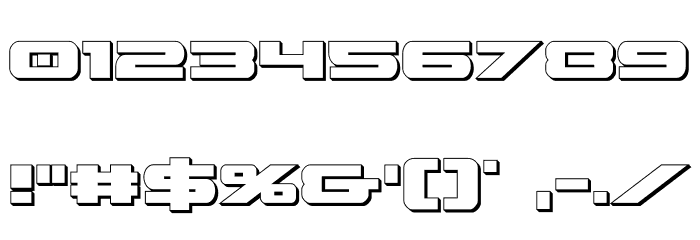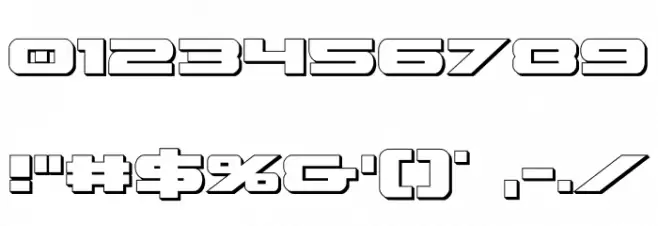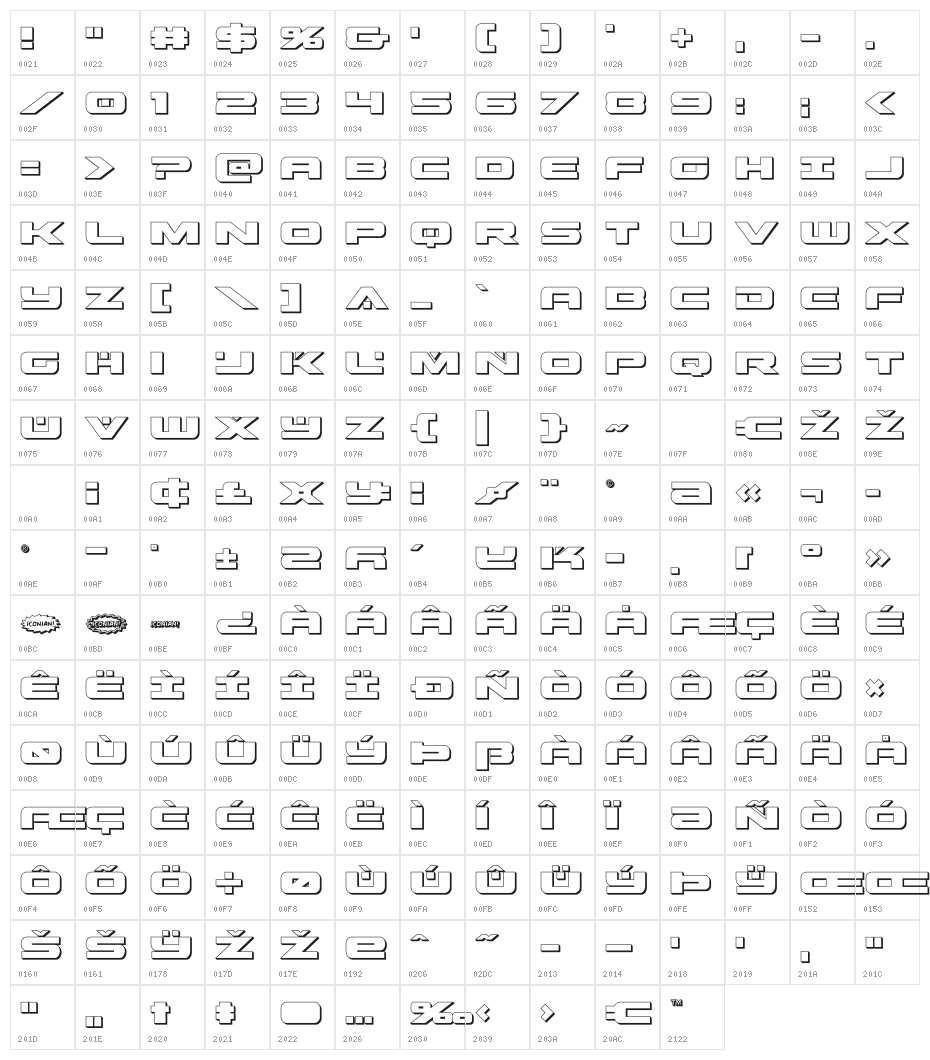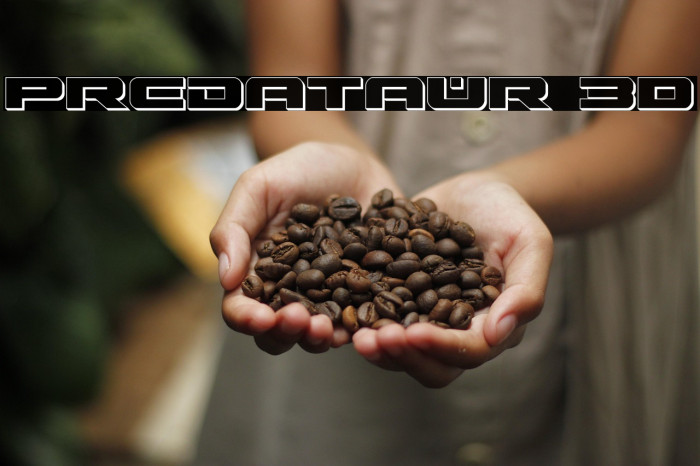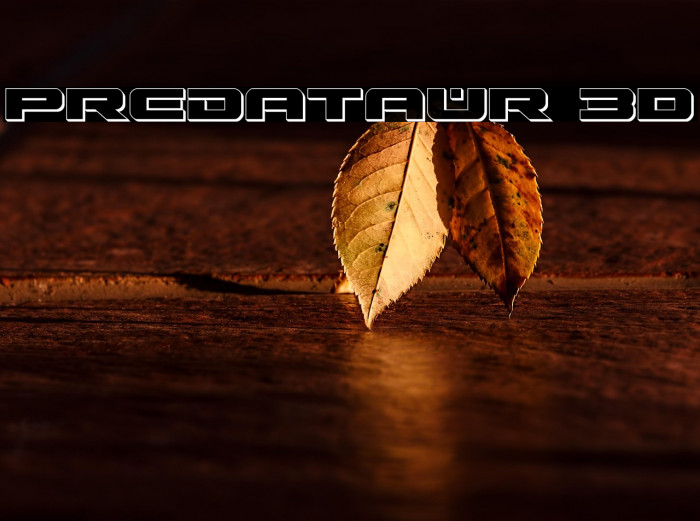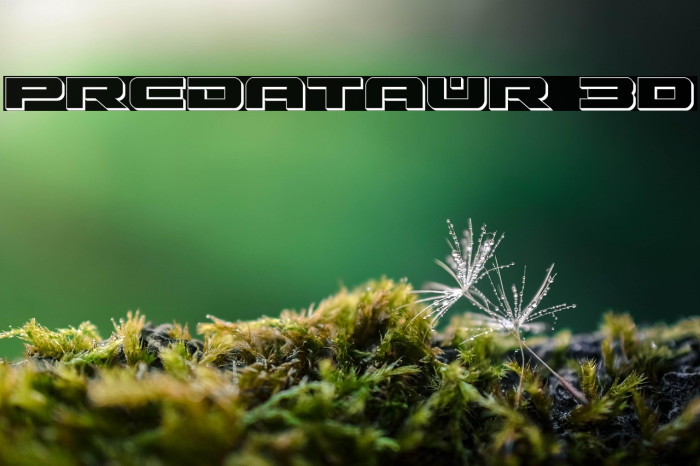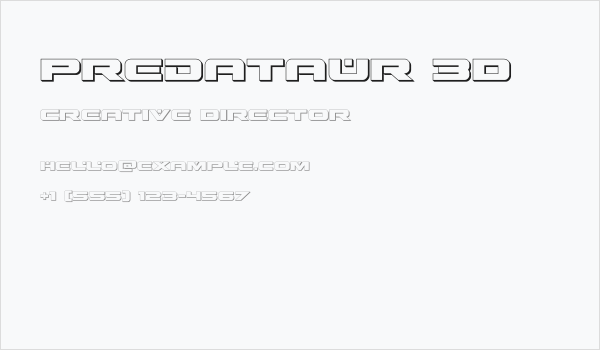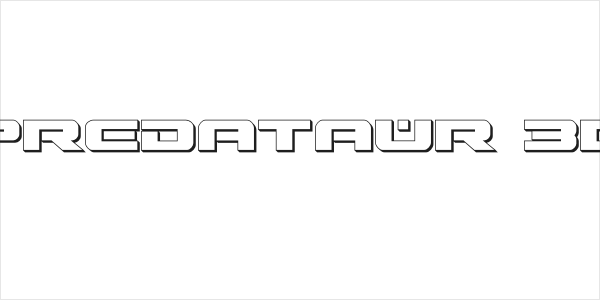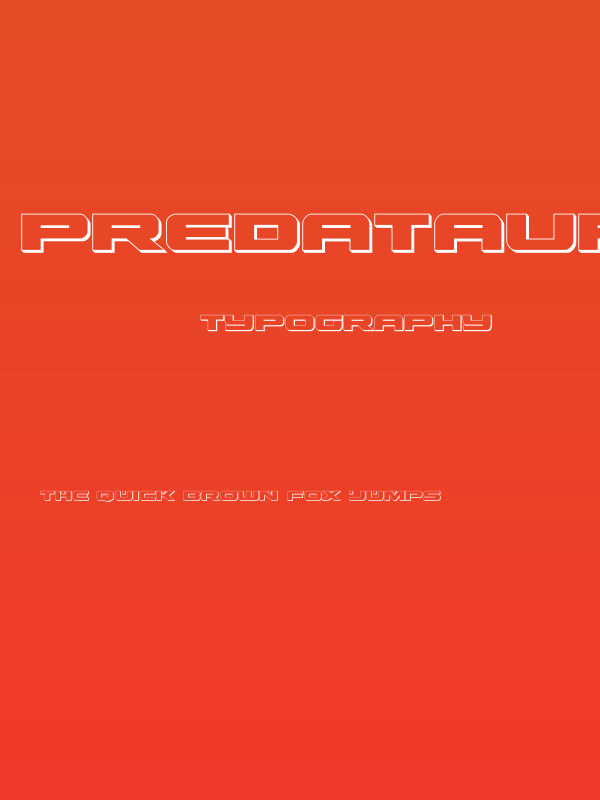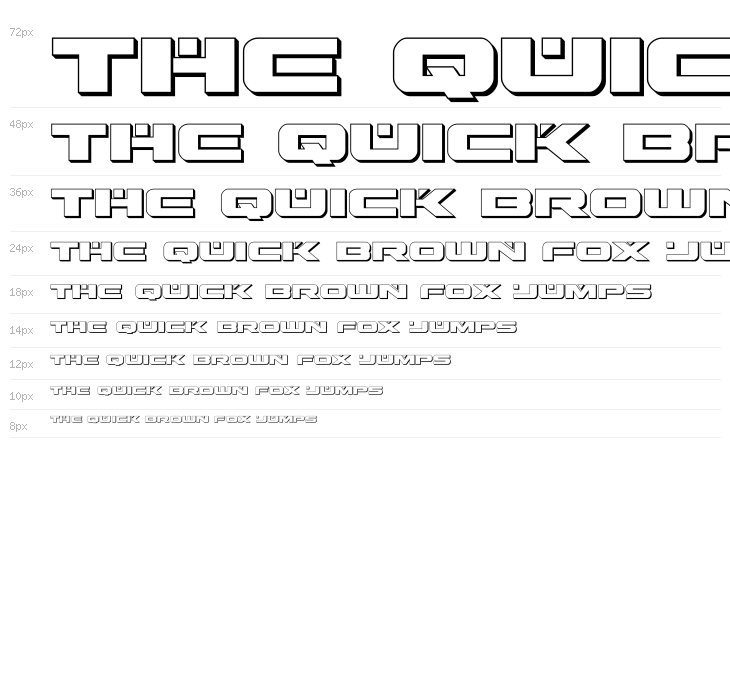
Predataur 3D Font
Predataur 3D Description
This font features a bold, three-dimensional design with a futuristic and geometric aesthetic. The characters are outlined with a thick border, giving them a distinct, blocky appearance. The style is reminiscent of digital or sci-fi themes, with a strong emphasis on angular lines and sharp edges. The uppercase and lowercase letters maintain a consistent structure, enhancing readability while adding a unique visual flair. The numerals and special characters follow the same design principles, ensuring uniformity across all glyphs.
| Proposed Projects | Ideal for sci-fi themed projects, video game titles, tech-related branding, and futuristic posters. |